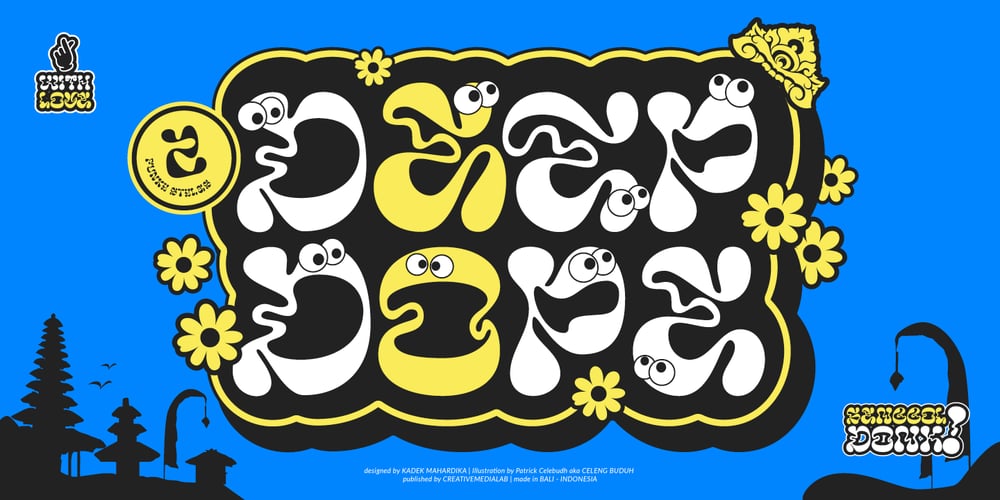
Deep Dope Font Family was designed by Kadek Mahardika and published by Creativemedialab. Deep Dope contains 2 styles and family package options. Introducing Deep Dope, another fun retro psychedelic-inspired typeface from creativemedialab. Its unique and consists of 2 styles Regular & Liquify. Perfect for summer theme design concept, branding, logo, and many more.